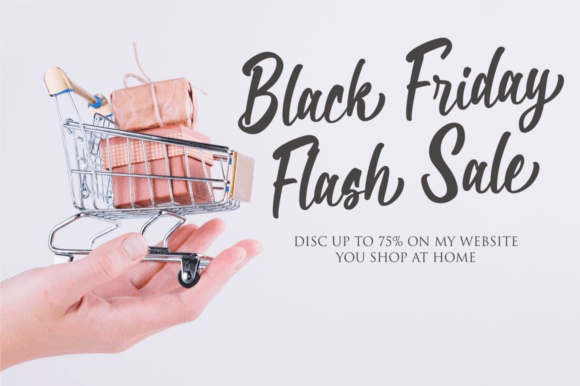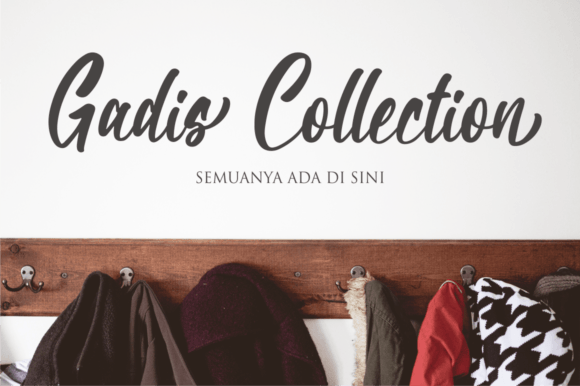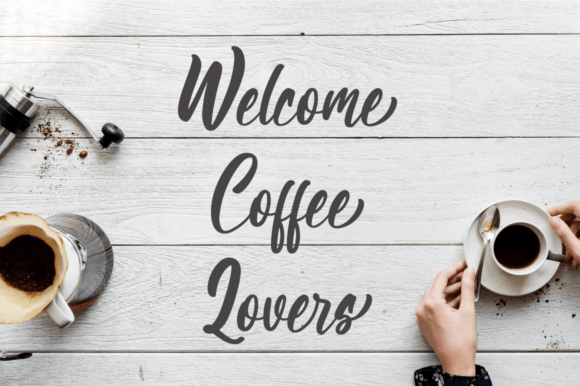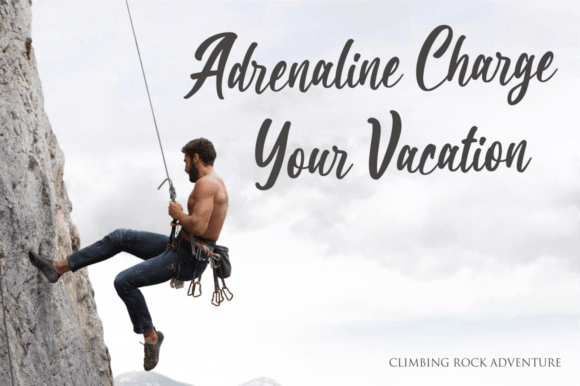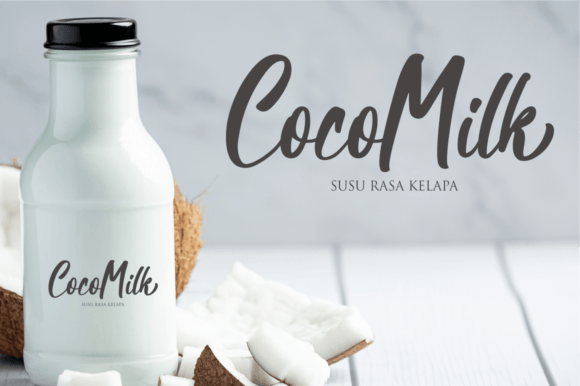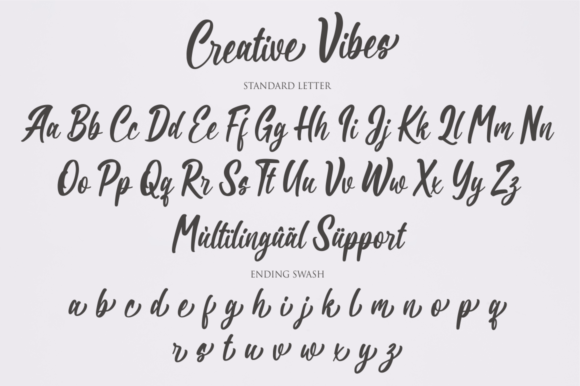
Introducing Creative Vibes Font: The Perfect Choice for Romantic and Personalized Designs
Are you a designer or crafter looking for a font that can add a touch of romance and personality to your creations? Look no further than Creative Vibes Font! This modern and smooth script font is perfect for writing wedding invitations, cards, and any other design that requires a special and unique feel.
What Makes Creative Vibes Font So Special?
Creative Vibes Font is a beautifully crafted font that exudes a sense of joy and delicacy. Its dainty and smooth lines make it ideal for creating elegant and sophisticated designs that are sure to impress. Whether you’re designing a wedding invitation, a greeting card, or a personalized gift, this font is sure to add a touch of magic to your creation.
Key Features of Creative Vibes Font
- Modern and Smooth Script Font: Creative Vibes Font is a modern script font with smooth lines and a flowing style that’s perfect for creating elegant and sophisticated designs.
- Dainty and Joyful: This font is dainty and joyful, making it ideal for designs that require a touch of whimsy and romance.
- PUA Encoded: Creative Vibes Font is PUA encoded, which means you can access all of the amazing glyphs and ligatures with ease. This makes it easy to create unique and personalized designs that stand out from the crowd.
- Perfect for Wedding Invitations and Cards: This font is perfect for writing wedding invitations, cards, and any other design that requires a romantic and personalized touch.
Why Designers and Crafters Love Creative Vibes Font
Designers and crafters love Creative Vibes Font for its versatility and ease of use. This font is perfect for a wide range of design projects, from wedding invitations and cards to personalized gifts and stationery. Its smooth and flowing lines make it easy to read and beautiful to look at, making it a great choice for designs that require a touch of elegance and sophistication.
Tips for Using Creative Vibes Font
- Pair it with Other Fonts: Creative Vibes Font pairs well with other fonts, making it easy to create unique and interesting designs. Try pairing it with a bold font for a striking contrast.
- Use it for Headings and Titles: This font is perfect for headings and titles, where its smooth and flowing lines can really shine.
- Experiment with Different Colors: Creative Vibes Font looks great in a variety of colors, from soft pastels to rich jewel tones. Experiment with different colors to find the perfect look for your design.
Creative Vibes Font is a beautiful and versatile font that’s perfect for designers and crafters looking to add a touch of romance and personality to their creations. With its modern and smooth script style, dainty and joyful lines, and PUA encoding, this font is sure to become a favorite in your design arsenal. So why wait? Download Creative Vibes Font today and start creating stunning designs that are sure to impress!
FAQs About Creative Vibes Font
- What is Creative Vibes Font? Creative Vibes Font is a modern and smooth script font that’s perfect for writing wedding invitations, cards, and any other design that requires a romantic and personalized touch.
- Is Creative Vibes Font PUA encoded? Yes, Creative Vibes Font is PUA encoded, which means you can access all of the amazing glyphs and ligatures with ease.